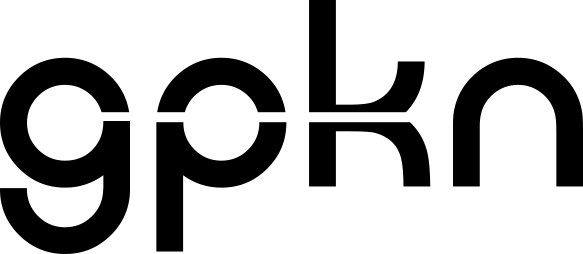
Gpkn Font
Give your typography a style that will have a more noticeable outlook. Utilize this sans serif font, that will gain trust with its, clean and stenciled design. This font also has a geometric style that is modern and allows you to make use of its normal and capital letterforms, which also include numbers and more.
The Gpkn font characters are slightly rounded and the bold style is perfect for many places such as sports clothing, games, futuristic designs, and presentations.